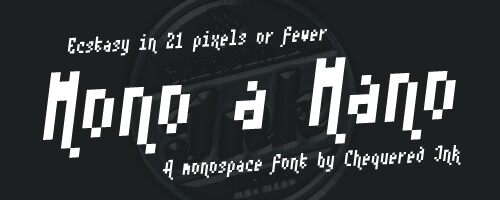
Mono a Mano Regular
Mono a Mano, a distinctive font created by the talented designers at Chequered Ink, exudes a captivating pixelated aesthetic. This condensed bitmap font boasts a striking, monochromatic style that evokes a retro-inspired, digital charm.
The font's pixelated composition lends it a unique, eye-catching visual appeal, making it an excellent choice for projects seeking a bold, contemporary feel. The condensed width adds a sense of dynamism and visual interest, perfectly complementing the font's pixelated nature.
Mono a Mano's versatility shines in a variety of design applications, from retro-inspired branding and vintage-themed graphics to avant-garde editorial layouts and futuristic user interfaces. Its distinctive character makes it a versatile tool for creators seeking to infuse their work with a captivating, pixel-perfect aesthetic.